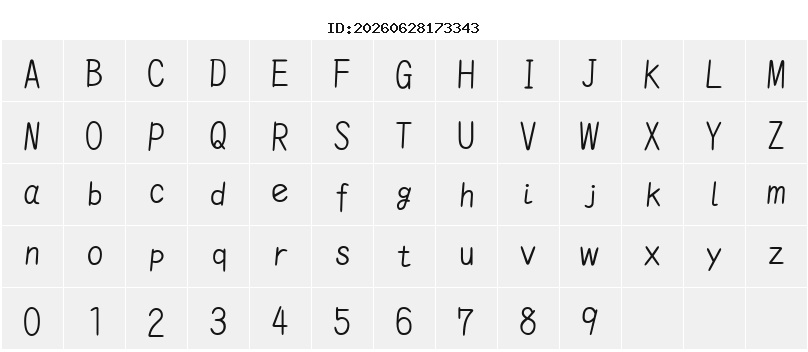
• Font Name: 白舟太篆書
• Full Font Name: 白舟太篆書
白舟太篆書.ttf is a modern, elegant sans-serif font designed for ultimate readability and visual harmony. Perfect for branding, headlines, web design, and print materials.